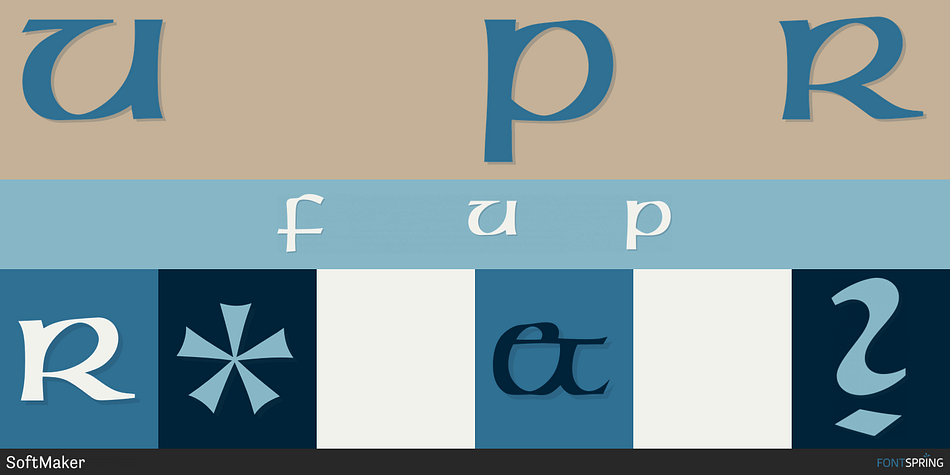
UNCIAL PRO REGULAR
Uncial Pro is a historical and script font published by SoftMaker.
Uncial Pro is a unicase design. The upper and lowercase letters have the same design and are the sam “Irish” or “Celtic”. It is also a favorite for use on certificates and diplomas. The font is best used in headlines and shorter texts with a point size of 12 or larger